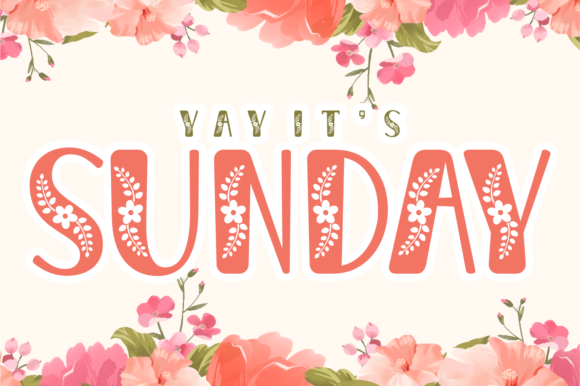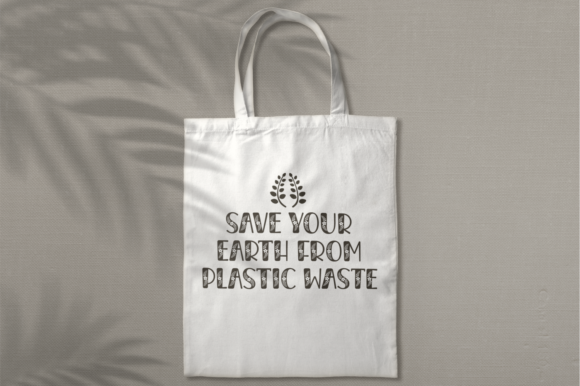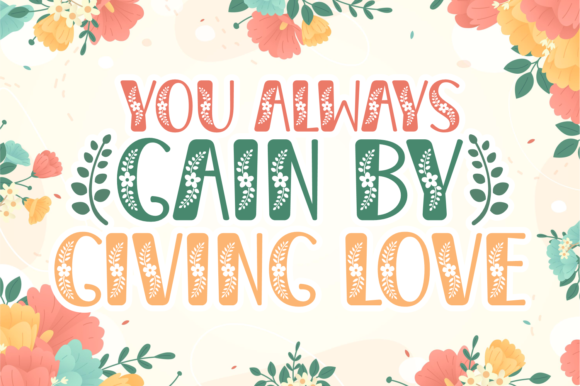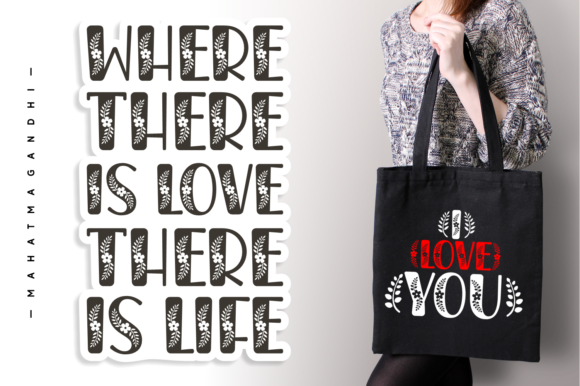
Yay It’s Sunday is a lovely decorative font inspired by spring and nature. You can see gorgeous drawing elements with flowers and leaves inside the character set. This floral font is perfect for tote bags, art prints, clothing, flower shops, t-shirts, posters, covers, banners, wall art, and quotes.